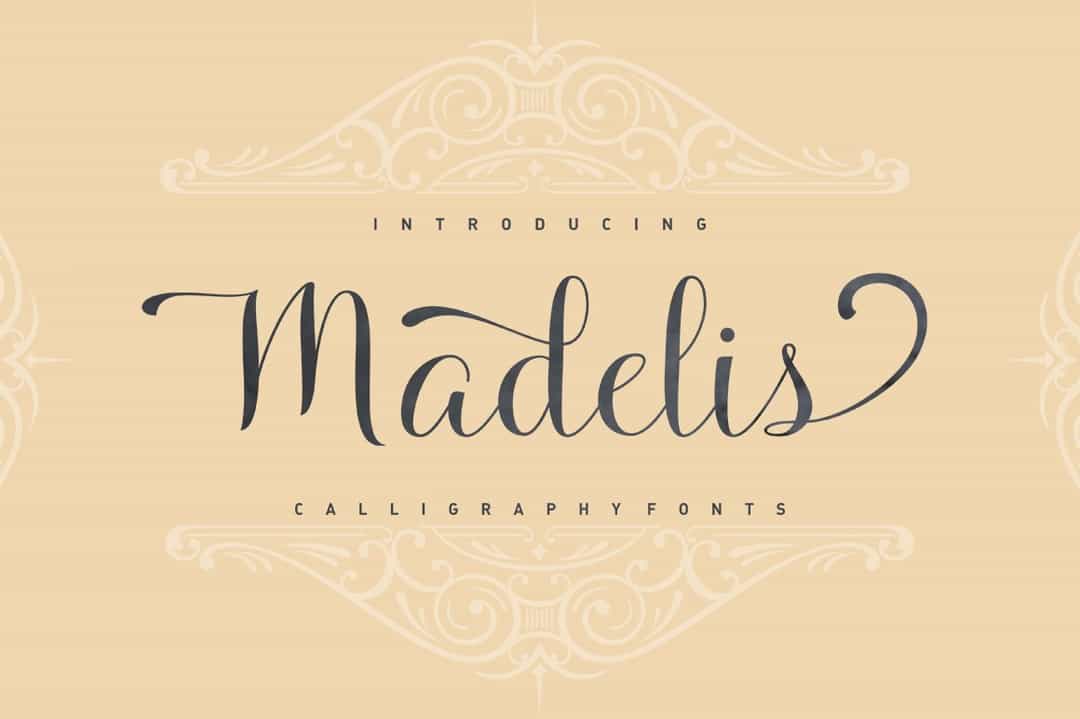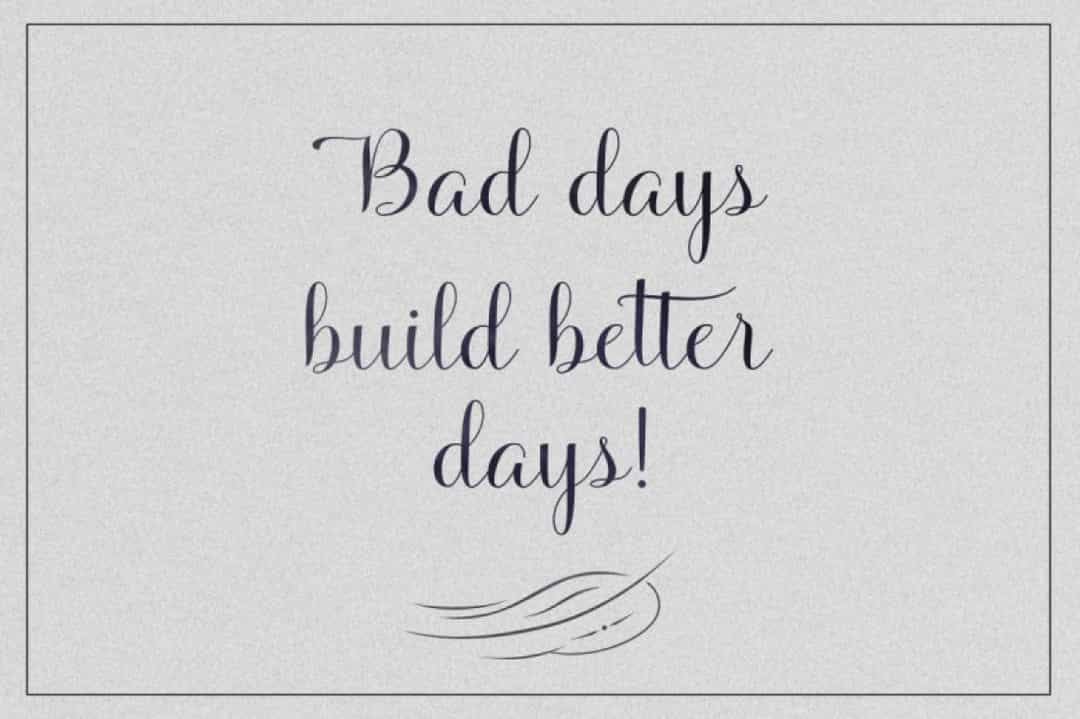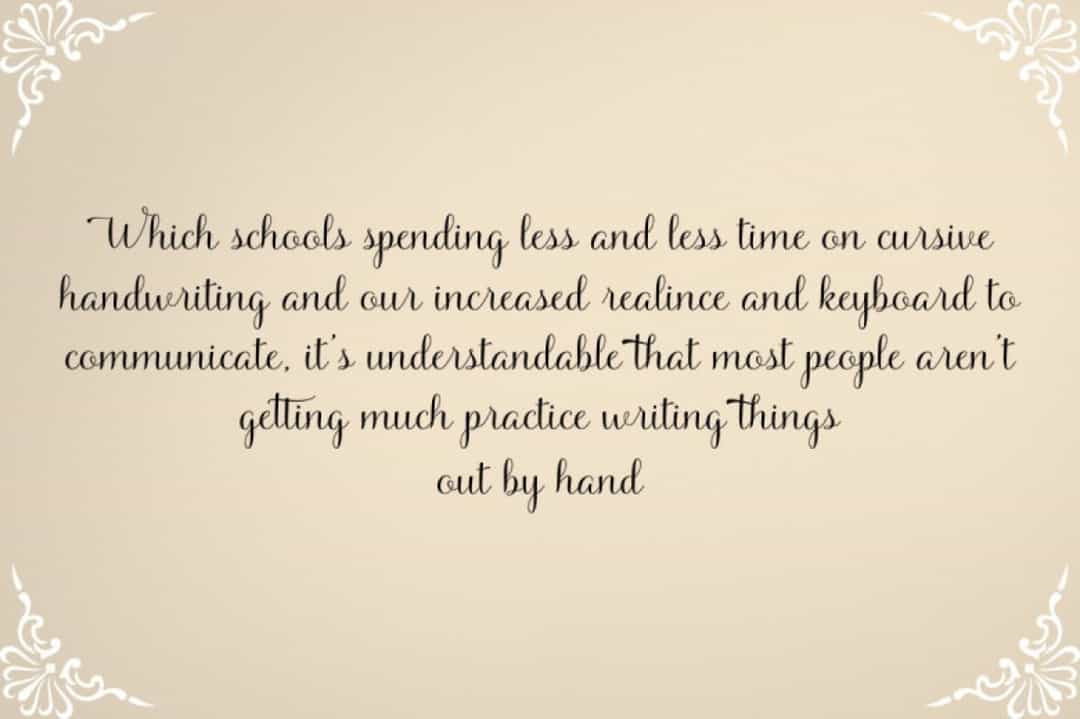
Madelis Calligraphy font features contemporary hand scratches for a truly captivating effect. If you decide to incorporate this font in your work, I am certain it will appeal to you immediately and quickly since its many characteristics include lowercase letters, uppercase letters, punctuation patterns numbers as well as multilingual support and various ligatures and styles that include alternate styles.